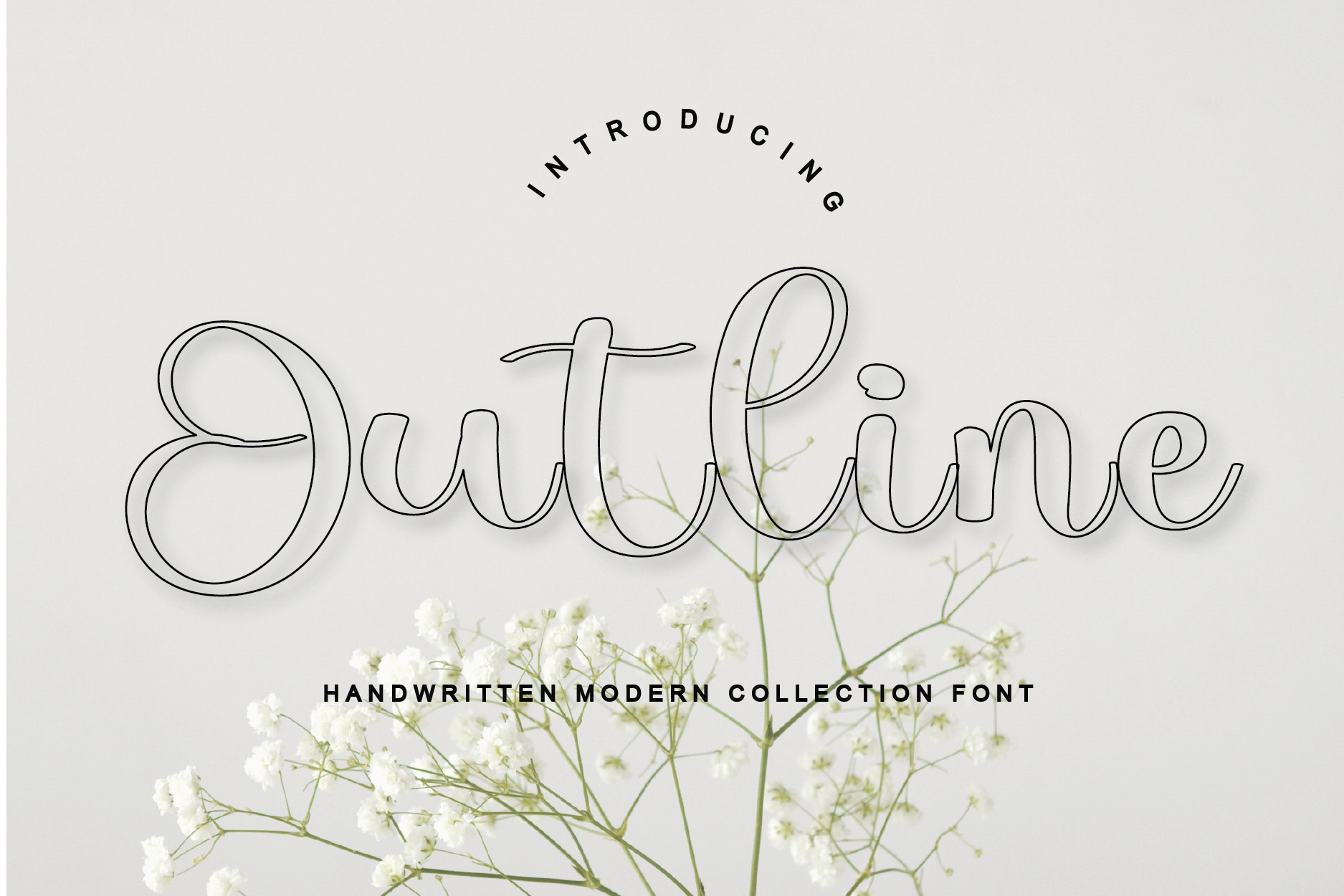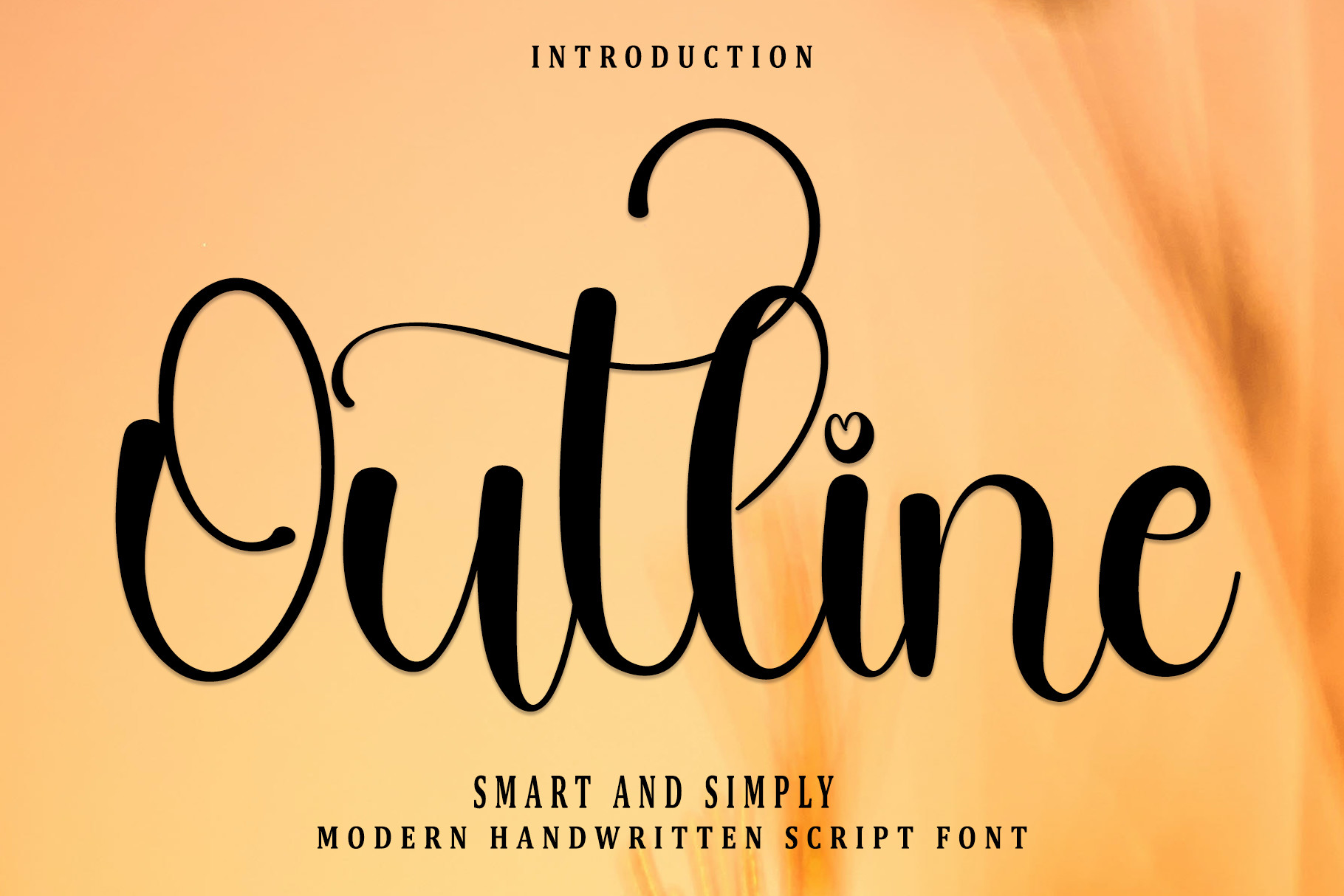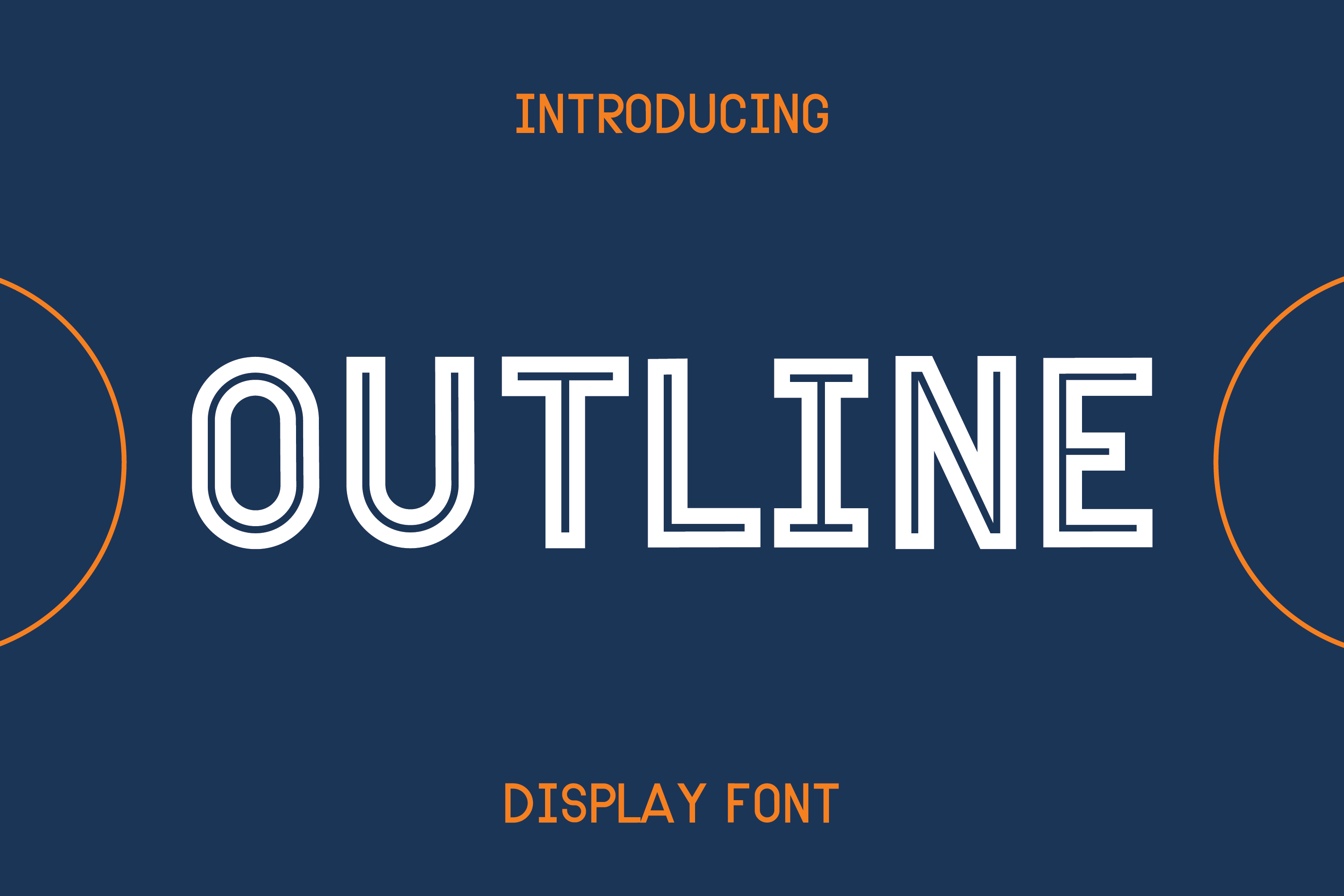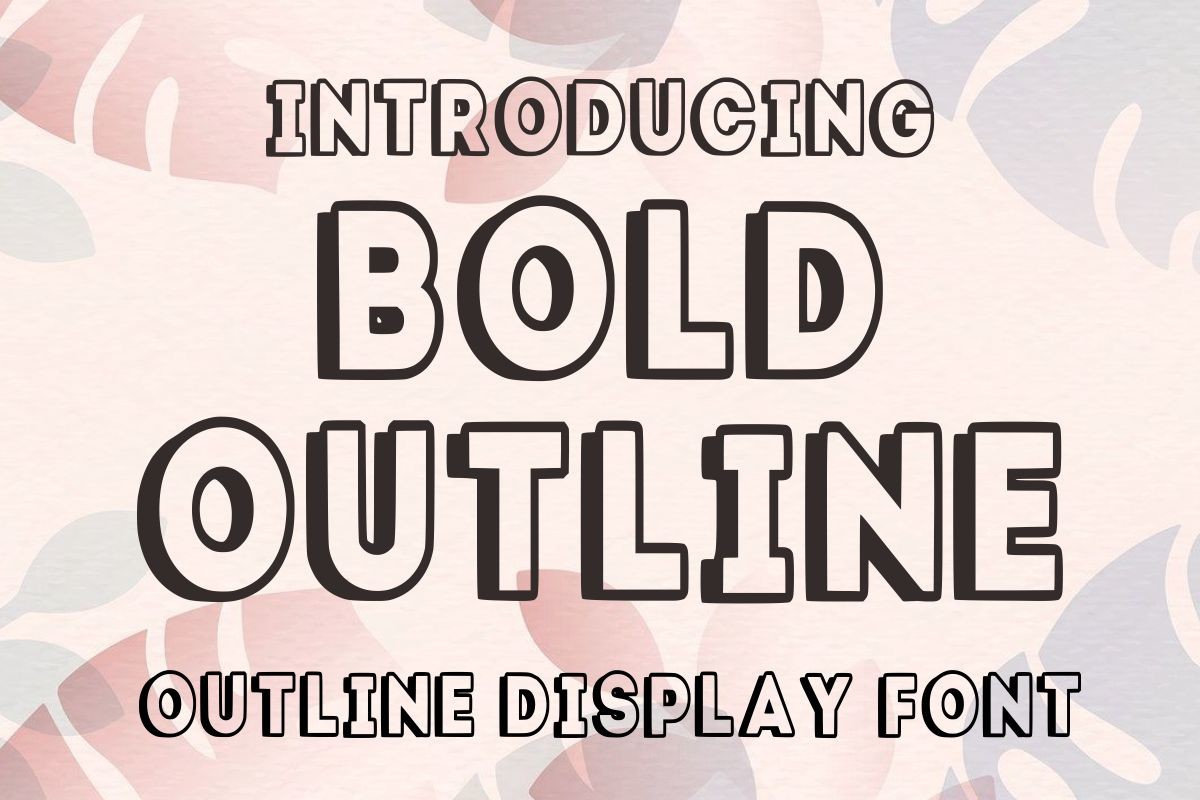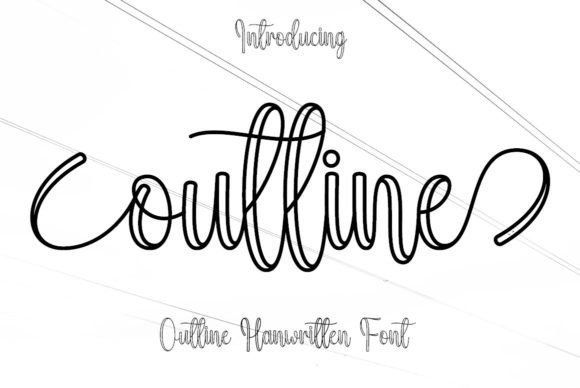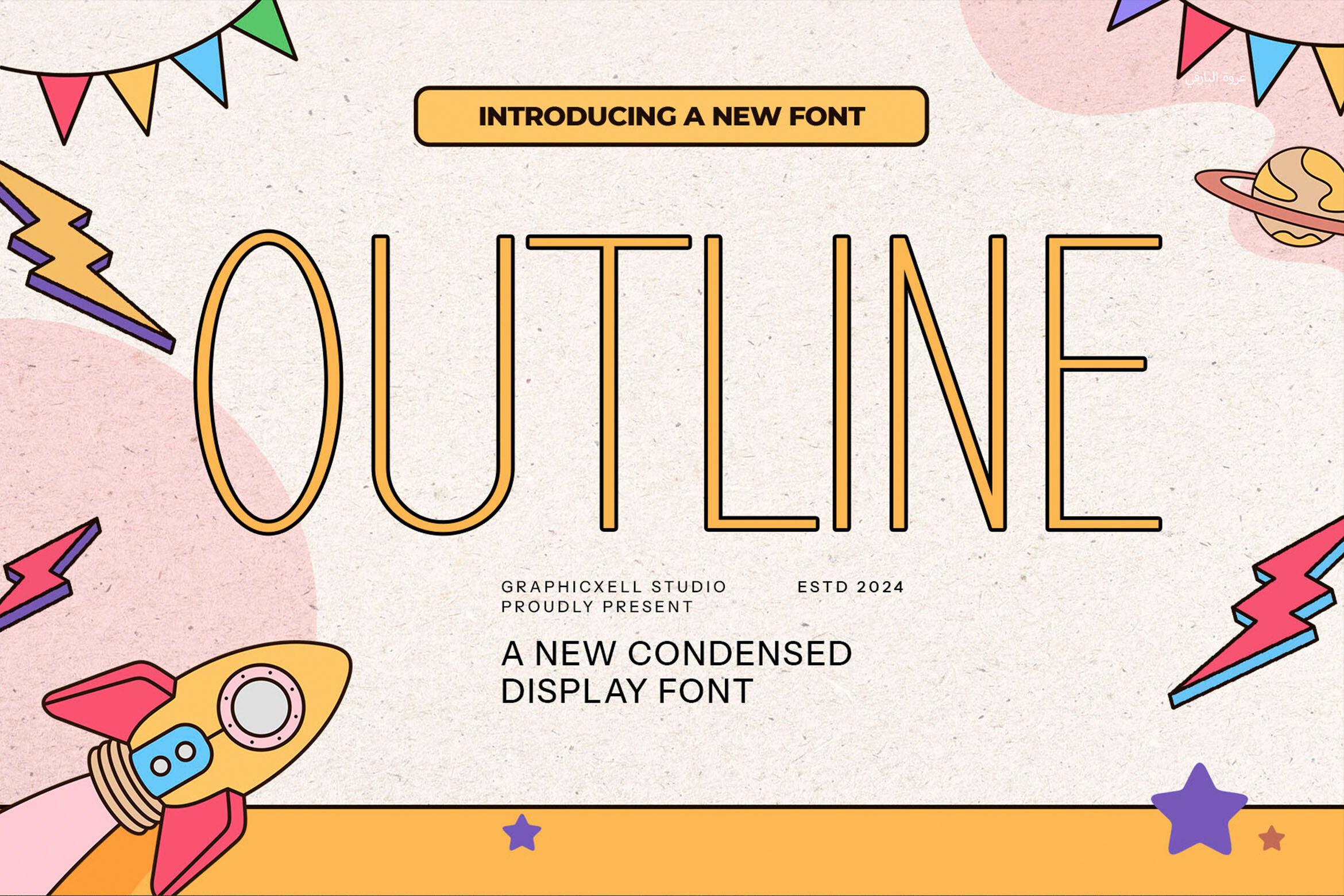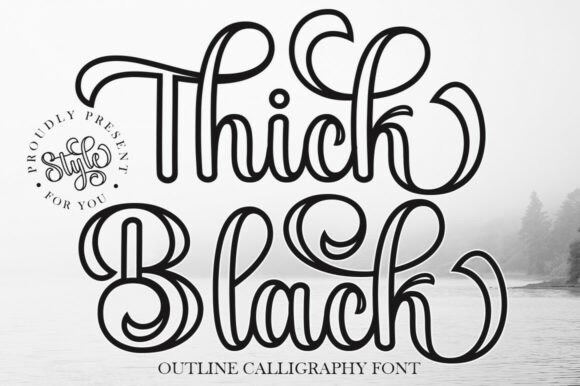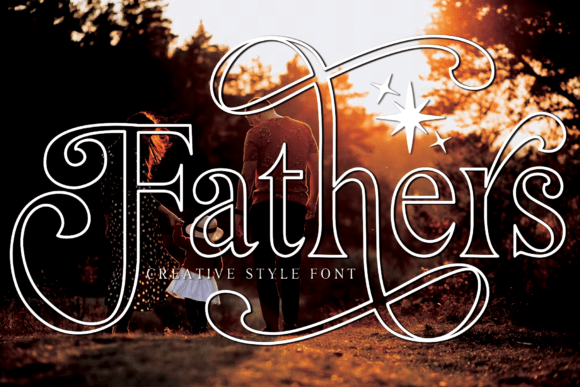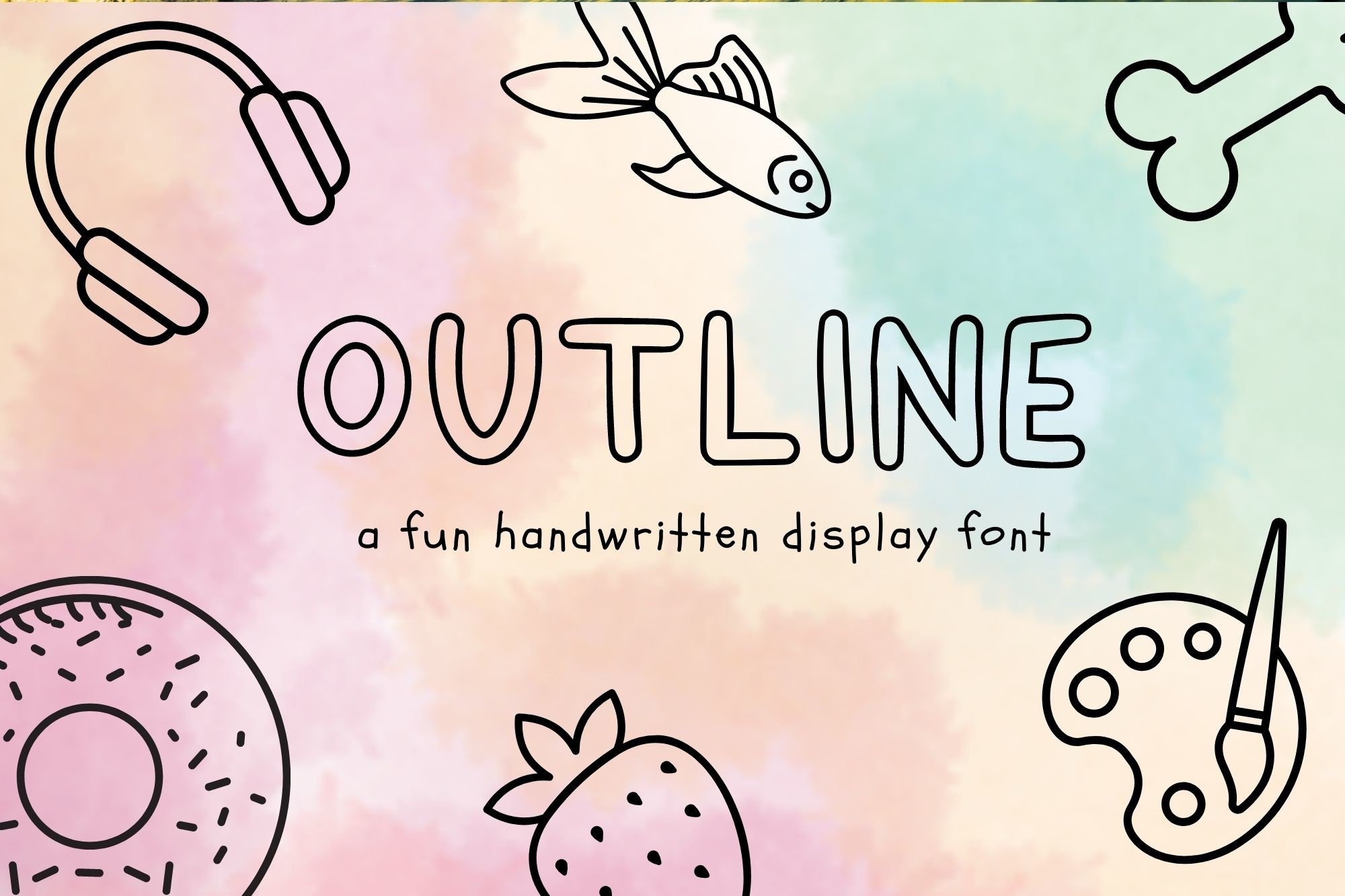
Discover 20 essential outline fonts perfect for eye-catching designs in Canva. This list features trendy, versatile options for standout headlines, branding, social media, and more—plus Creative Fabrica font picks for extra creative flexibility and licensing peace of mind. All fonts are Canva-friendly and easy to use.
Outline fonts have become a global trend, offering designers a bold way to highlight text, boost brand presence, and create compelling visuals. Whether for posters, Instagram posts, Etsy shops, or business branding, outline fonts for Canva can effortlessly transform a standard design into something unforgettable. Since Canva users worldwide are searching for both free and premium options suited for personal and commercial projects, this curated collection showcases the best Canva outline fonts and recommends Creative Fabrica’s top picks for even more variety. For more Canva ideas, check out 9 Creative Display Fonts That Stand Out in 2026 as well.
Outline Font by hl_studio
This playful modern script outline font mixes fluid curves with a contemporary outlined look. It’s ideal for projects where elegance meets a sense of personality—think branding suites, social graphics, and stylish invitations. Its graceful line work ensures your design will stand out in feeds and print. Versatile for short, impactful phrases or standout logos.
Outline Font by Inermedia STUDIO
Sleek and balanced, this outline font offers a refined take on the outline trend, making it a strong choice for headlines, chic branding, or standout website banners. The clean geometry gives it modern versatility for both print and digital use. Use it in Canva to immediately uplift your layouts with a designer edge.
Outline Font by The Magic Bee Studio
This font showcases a bolder, edgier outline—perfect for campaigns needing a youthful kick or high-energy vibe. With strong display appeal, it’s a go-to for digital ads, event graphics, or YouTube covers seeking an eye-catching twist. Its clean lines keep projects readable, while the stylized outlines draw plenty of attention.
Outline Font by Pila Studio
Handmade qualities make this outline font shine in projects needing a touch of warmth and authenticity. From invitations and stationery to personal branding or labels, the organic lines add a crafted, bespoke feel. It’s approachable and charming—perfect for those wanting to break away from clinical, digital looks.
Bold Outline Font by Infinity art Studio
With thick strokes and pronounced outlines, this font radiates confidence and friendliness. It excels in merchandise, t-shirt designs, and event banners where you need easily legible yet memorable headings. Its modern feel makes it valuable for both fun and corporate projects using Canva.
Outline Font by Hardiboy Design
This font features clean, minimalist outlines for a contemporary look suitable in tech branding, portfolios, and digital signage. Its versatility ensures clarity at any size, and the geometric style works seamlessly with modern Canva templates. Use it whenever you need sleek headlines with an on-trend outline twist.
Outline Font by Graphicxell
This sans-serif outline offers modern minimalism with hollow letterforms. Great for urban brands, tech startups, or editorial layouts, it stays clear even at smaller sizes. It matches well with both bold fills and solid backgrounds on Canva for maximum visual impact.
Thick Black Outline Otf Font by Kama Studio
Feminine and graceful, this font delivers elegant hollow outlines with substantial weight, making it a superb choice for wedding stationery, signage, and logo work. It stands out beautifully against colored backgrounds in Canva’s workspace. Add a sophisticated flair to luxe projects and invitations.
Fathers Outline Font by andikastudio
This outline font captures a classic but approachable college style. Its all-caps, sturdy shapes shine on sports posters, creative branding, and event flyers. Import to Canva for projects demanding academic or athletic energy with a cool outlined finish.